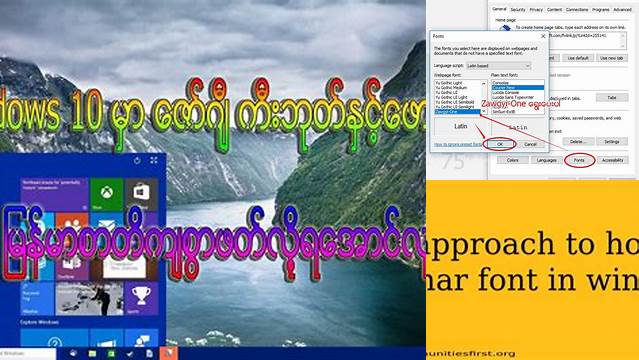
Hey guys, are you looking to spice up your Windows 10 with some awesome Myanmar fonts? Well, you've come to the right place! This guide is all about Myanmar fonts for Windows 10: free download and how to get them up and running on your system. We'll dive into where you can find these fonts, how to install them, and even how to use them in your documents and designs. Whether you're a student, a professional, or just someone who loves the beauty of the Myanmar script, this guide is designed to help you out. Let's get started and make your Windows 10 experience a bit more vibrant with some beautiful Myanmar typography! Get ready to say goodbye to those generic fonts and hello to a world of stylish options. Let's explore the exciting world of free Myanmar font downloads! You'll be writing in style in no time.
H2: Finding the Best Free Myanmar Fonts Online
H3: Key Features to Look for in a Myanmar Font
When you're on the hunt for the perfect free Myanmar font download, it's not just about finding something that looks pretty. You should also consider some key features to ensure it works well on your Windows 10 system and supports the characters you need. First and foremost, make sure the font supports all the necessary Myanmar characters. Some fonts might only cover a limited set, which can be frustrating if you need to write complex texts. Look for fonts that include a wide range of characters, including vowels, consonants, and diacritics. This ensures that you can write everything from basic words to more complex phrases. Test the font by typing a few sentences in Myanmar to see if all the characters display correctly. You can use online Myanmar keyboards or even a simple text editor to check this.
Another thing to consider is the font's readability. Some Myanmar fonts are designed for headlines, while others are better suited for body text. If you plan to use the font for large blocks of text, choose one that's clear and easy to read at various sizes. Consider the font's weight (bold, regular, light) and style (serif or sans-serif). For example, a bold, sans-serif font might be great for headings, but a regular, serif font might be easier to read in long paragraphs. Furthermore, check for the font's compatibility with your software. While most free Myanmar fonts will work with common applications like Microsoft Word, Google Docs, and design software, it's always a good idea to test it before you commit to using it for a project. Ensure that the font displays correctly in the software you use most often. Finally, if you're working with different versions of Windows, ensure the font is compatible with Windows 10.
Expect the continued integration of artificial intelligence and machine learning. They will be used to generate font variations and optimize designs. Expect increased focus on the development of open-source fonts. This will allow more people to use Myanmar fonts. The growth of online learning resources will provide learning opportunities. This will expand knowledge of Myanmar fonts and design. Improved accessibility will be developed to reach a wider audience. This will improve access for the wider community. Technology will enable greater innovation and creativity. Technology will drive innovation. The future of Myanmar fonts will be shaped by technology. It is also shaping new styles and innovations. You can expect constant innovations. Technology is set to revolutionize how we create, use, and experience Myanmar fonts. Expect technology to lead the way in the future.